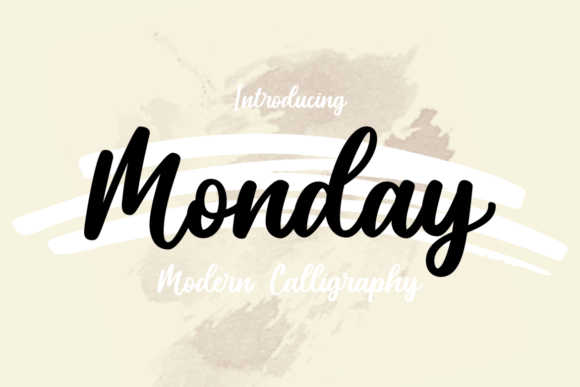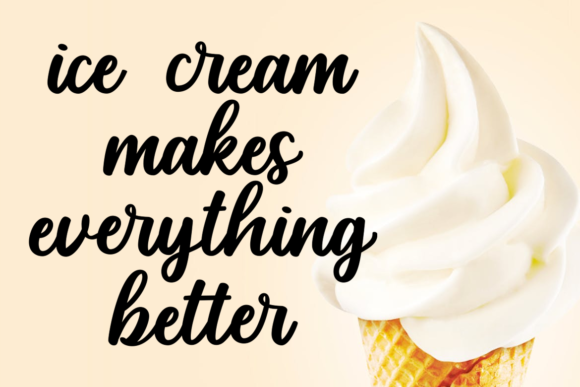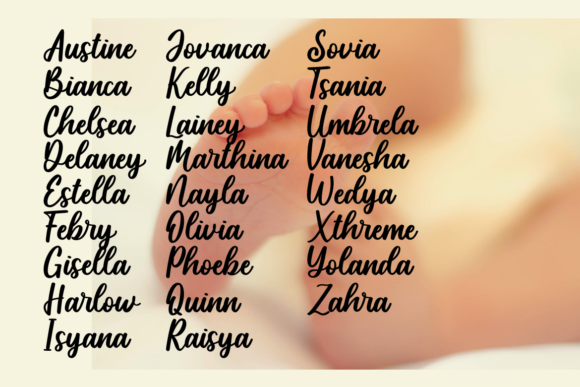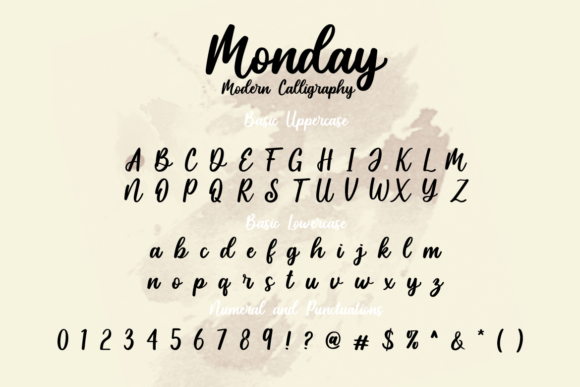
About Monday Font
Monday sounds like a captivating handwritten font that effortlessly combines elegance and contemporary flair. With its PUA encoding, accessing a wealth of glyphs and swashes becomes a breeze, providing a seamless design experience. Let’s explore some fantastic ways to utilize Monday font and elevate your projects to new heights:
1. Wedding Invitations: Create stunning and sophisticated wedding invitations that exude timeless elegance with Monday font’s flowing and graceful style.
2. Branding and Logo Design: Incorporate Monday font into your branding materials and logos to add a touch of sophistication and charm to your business identity.
3. Editorial Design: Use Monday font in editorial layouts for magazines or book covers, imparting a refined and classy feel to the typography.
4. Quote Posters: Craft beautiful quote posters featuring inspirational or motivational sayings using Monday font to add a touch of grace and refinement.
5. Social Media Graphics: Design eye-catching and engaging social media graphics with Monday font to captivate your audience across platforms.
6. Personal Stationery: Utilize Monday font in personal stationery, such as thank-you notes and personal letterheads, to create a polished and elegant impression.
7. Product Packaging: Apply Monday font in product packaging to enhance the presentation and elevate the brand image with its graceful aesthetic.
8. Certificate Design: Create certificates and diplomas using Monday font to convey a sense of accomplishment and prestige.
9. Luxury Branding: Use Monday font in luxury brand materials to evoke a sense of sophistication and high-end appeal.
10. Calligraphy Art: Employ Monday font in calligraphy art pieces or custom lettering projects, adding a touch of artistic flair to your creations.
11. Fine Art Prints: Design fine art prints with Monday font, showcasing its elegant and flowing letterforms.
12. Formal Event Invitations: Design formal event invitations, such as galas or upscale soirées, using Monday font to set the tone for an elegant affair.
13. Bookmarks: Create stylish and elegant bookmarks with Monday font for a chic and sophisticated reading accessory.
14. Monograms and Initials: Utilize Monday font to design monograms or initials for personalized gifts and products.
15. Artistic Quotes: Create artistic quotes using Monday font, combining its flowing lines with watercolor or ink textures for a visually striking effect.
16. Beauty and Fashion: Apply Monday font in beauty and fashion branding, adding a touch of glamour and sophistication.
17. Menus and Restaurant Branding: Use Monday font in menu design and restaurant branding to convey an upscale dining experience.
18. Event Invitations: Design elegant event invitations for special occasions like anniversaries, galas, or fundraisers using Monday font.
19. Blog Headers: Apply Monday font in blog headers and banners for a refined and stylish blog presentation.
20. Poetry Books: Use Monday font in poetry book layouts to complement the poetic verses with an elegant and expressive typeface.
In summary, Monday font’s elegance, flowing lines, and PUA encoding make it an excellent choice for a wide range of design projects. Whether you’re working on wedding invitations, branding materials, or social media graphics, Monday font will infuse your designs with a touch of class and sophistication. So, embrace the grace and contemporary charm of Monday font and let it elevate your creative projects to the highest levels!